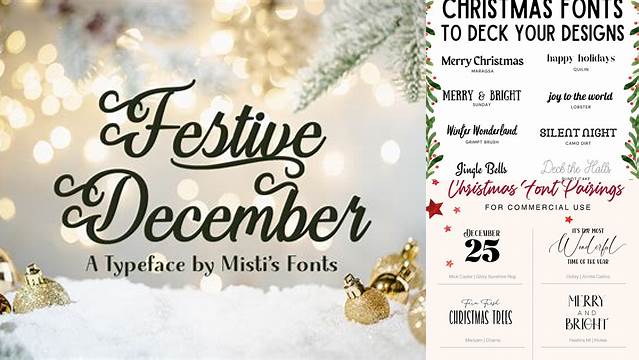
Free Christmas Fonts For Commercial Use: Your Festive Design Toolkit
Hey design enthusiasts! Christmas is just around the corner, and that means it's time to deck the halls with creativity! And what better way to spread holiday cheer than with some fantastic free Christmas fonts that you can use for commercial purposes? Yes, you heard it right! No need to break the bank – we've got you covered with a collection of beautiful and versatile fonts that are perfect for all your festive design needs. From creating eye-catching social media graphics to designing stunning holiday cards and marketing materials, these fonts will add a touch of magic to your projects. Get ready to unleash your inner elf and elevate your designs with these amazing, totally free resources! Let's dive in and explore some of the best free Christmas fonts for commercial use that will make your designs shine this holiday season.
Free Christmas Fonts for Commercial Use: Festive Typography Delights
Christmas is a time for joy, celebration, and of course, beautiful designs. Selecting the right font can significantly impact the visual appeal of your holiday-themed projects. That's why we've curated a list of free Christmas fonts for commercial use that offer a variety of styles, from classic and elegant to modern and whimsical. Whether you're crafting invitations, designing website banners, or creating promotional materials, these fonts will help you capture the spirit of the season. Imagine the possibilities: a playful font for children's books, a sophisticated script for elegant greeting cards, or a bold, festive font for advertising campaigns. The key is to choose fonts that align with your brand's aesthetic and resonate with your target audience. Think about the message you want to convey and how the font can enhance that message. Are you aiming for a cozy, nostalgic feel or a vibrant, contemporary vibe? The fonts you choose will help you set the tone and create a memorable experience for your audience. So, let's embark on a font-finding adventure, exploring options that not only look great but also come with the freedom of commercial use, allowing you to bring your festive visions to life without worrying about licensing fees. Choosing the right free Christmas fonts for commercial use is about expressing creativity and finding the perfect typography match. It means matching the mood of your message with fonts that resonate perfectly with the holiday season.
This is more than just a selection of fonts; it’s about giving designers and businesses the power to express creativity without limitations. You’re given the tools to create a message that’s not only aesthetically pleasing but also memorable and effective. By selecting these fonts, you ensure your holiday communications are on-brand, visually stunning, and ready to spread festive cheer to everyone. So get ready to download, create, and share the holiday spirit through your amazing designs!
Choosing the Right Christmas Font: Style and Usage
Selecting the right font is a crucial decision for any design project, especially during the holiday season, when you want to capture the magic and joy of Christmas. With a vast array of free Christmas fonts for commercial use available, it can be a little overwhelming. To make the process easier, consider the style and usage of each font. Think about the overall aesthetic you're trying to achieve. Do you want a classic, elegant look, a playful and whimsical feel, or something modern and sleek? The font you choose should align with your brand's identity and the message you're trying to convey. If you're designing invitations for a formal holiday event, an elegant script or serif font might be the perfect choice. For a fun and family-friendly project, a playful sans-serif font could be ideal. Consider the context where the font will be used. Will it be used in large headlines, body text, or both? Some fonts are better suited for headlines, while others are more legible for longer blocks of text. Make sure the font is easy to read, especially if it will be used in small sizes or on screens. Think about the visual hierarchy of your design. The font can help you emphasize important information and guide the viewer's eye. Use different font weights, sizes, and styles to create visual interest and highlight key elements. Don't be afraid to experiment with different font combinations to find the perfect match. Pair a bold headline font with a more subtle body text font to create a balanced and visually appealing design. By considering these factors, you can select free Christmas fonts for commercial use that will enhance your holiday projects and make them truly unforgettable. Choosing the right font means finding something that not only looks good but also speaks to the emotional connection of the holiday season.
Script Fonts for Christmas: Adding Elegance and Flair
Script fonts have a special place in design, offering elegance and a touch of personalization that can elevate any project, especially during the festive season. If you are looking for free Christmas fonts for commercial use that exude sophistication and charm, script fonts are an excellent choice. These fonts mimic handwriting, giving your designs a handcrafted feel that can be incredibly inviting. Whether you're designing holiday cards, invitations, or packaging, a well-chosen script font can add a touch of luxury and warmth. Script fonts come in various styles, from classic and formal to modern and casual. Some scripts are ornate and flowing, perfect for creating a sense of occasion, while others are more relaxed and playful, suitable for a more informal feel. When selecting a script font, consider the context of your design. For a traditional Christmas theme, a classic script with elegant flourishes might be ideal. For a more modern or minimalist approach, a clean, contemporary script could be a better fit. Legibility is also an important factor when using script fonts. Ensure the font is easy to read, especially if it will be used in small sizes or for longer passages of text. A script font that is too elaborate or difficult to decipher can detract from the overall design. To make script fonts stand out, you can pair them with a complementary font, such as a clean sans-serif or a classic serif, for body text. This combination will create a balanced and visually appealing design. You can also experiment with different colors, sizes, and styles to enhance the impact of the script font. Script fonts are perfect for adding a personal touch to your projects. When looking at free Christmas fonts for commercial use, a script font can be the perfect way to capture the spirit of the season.
Display Fonts: Bold Statements for Holiday Greetings
Display fonts are the powerhouses of typography, designed to grab attention and make a bold statement. When it comes to creating eye-catching holiday greetings, display fonts are your best friends. Fortunately, there are plenty of free Christmas fonts for commercial use in the display font category, offering a wide range of styles that can make your designs stand out from the crowd. These fonts are typically used for headlines, titles, and other prominent text elements. They are designed to be visually striking and memorable, making them ideal for creating impactful holiday messaging. Display fonts come in various styles, from decorative and ornate to modern and geometric. Some fonts feature festive elements, such as snowflakes, stars, or other holiday-themed imagery, integrated directly into the letterforms. Others have bold, eye-catching letter shapes that demand attention. When choosing a display font for your holiday projects, consider the overall aesthetic of your design. A playful, whimsical font might be perfect for children's books or social media graphics, while a more elegant and sophisticated font could be ideal for greeting cards or marketing materials. Think about the readability of the font. While display fonts are designed to be visually appealing, it's important to ensure they are still legible, especially if you are using them for headlines or titles. Avoid fonts that are overly complex or difficult to decipher. Pairing a display font with a complementary font for body text can create a balanced and visually appealing design. The display font will draw attention, while the body text font provides the necessary information. By using these free Christmas fonts for commercial use, you will give your projects a huge advantage and create the wow factor you desire.
Sans-Serif Fonts: Clean and Modern Christmas Designs
For those who appreciate simplicity and a modern aesthetic, sans-serif fonts are a go-to choice for any design project. During the festive season, these fonts can provide a clean, contemporary look that balances the traditional warmth of Christmas with a touch of modern flair. Luckily, there are many free Christmas fonts for commercial use that fall into the sans-serif category, providing a versatile range of options for your holiday designs. Sans-serif fonts, characterized by their lack of serifs (the small strokes at the end of letters), offer a clean, uncluttered appearance that is easy to read and highly versatile. They are ideal for a wide range of applications, from website design and social media graphics to print materials and packaging. When choosing a sans-serif font for your Christmas projects, consider its personality. Some sans-serif fonts are sleek and minimalist, perfect for a modern and sophisticated look. Others have a more rounded or playful appearance, suitable for a fun and festive vibe. Think about the overall aesthetic you're trying to achieve and select a font that aligns with your brand's identity and the message you want to convey. Legibility is crucial when using sans-serif fonts, especially for body text. Ensure the font is easy to read, especially in small sizes and on screens. A well-chosen sans-serif font can enhance readability and make your designs more accessible to your audience. Combining a sans-serif font with another type of font, such as a script or serif, can create an interesting visual contrast. This can help you create a more dynamic and visually appealing design. Using free Christmas fonts for commercial use in the sans-serif style can elevate your holiday designs and give them a modern edge.
Serif Fonts: Classic and Elegant Christmas Typography
Serif fonts, with their classic elegance and timeless appeal, are a perfect choice for creating designs that evoke the spirit of Christmas. If you are looking for free Christmas fonts for commercial use that exude sophistication and a touch of tradition, serif fonts should be at the top of your list. These fonts, characterized by the small strokes, or serifs, at the end of each letter, have a long history of use in print and design, lending a sense of refinement and trustworthiness to any project. Serif fonts come in a variety of styles, each with its own unique personality. Some serifs are elegant and formal, perfect for creating a sense of occasion, while others are more casual and approachable. For Christmas projects, consider fonts that have a classic, traditional feel, or those that incorporate decorative elements to celebrate the holiday. Legibility is a key factor when choosing a serif font, especially for body text. Ensure the font is easy to read, particularly in smaller sizes. A well-chosen serif font can enhance readability and make your designs more accessible to your audience. Serif fonts pair well with other fonts, such as sans-serifs, to create interesting visual contrasts. A bold serif font can be used for headlines, while a clean sans-serif can be used for body text, creating a balanced and visually appealing design. Selecting free Christmas fonts for commercial use in the serif style allows you to tap into the traditional elegance of the holiday season.
Handwritten Christmas Fonts: Adding a Personal Touch
There's something uniquely special about a design that feels personal, almost as if it was created just for you. Handwritten fonts can do just that, bringing a touch of warmth, authenticity, and genuine holiday cheer to any project. If you are searching for free Christmas fonts for commercial use that embody the spirit of handcrafted beauty, handwritten fonts are an excellent choice. These fonts, designed to mimic the look of handwritten script or lettering, give your designs a unique, intimate feel. They are ideal for creating invitations, greeting cards, social media graphics, and any project where you want to communicate a personal message. Handwritten fonts come in a variety of styles, from elegant and flowing scripts to casual and playful brush strokes. Consider the overall tone of your design when selecting a handwritten font. For a sophisticated look, choose an elegant script with delicate strokes. For a more informal feel, a bold brush font might be the perfect choice. Legibility is essential, so ensure the font is easy to read, especially in the context of the project. To enhance the impact of a handwritten font, you can pair it with a complementary font. A clean sans-serif font for the body text can create a balanced, visually appealing design. When using free Christmas fonts for commercial use, a handwritten font can be a great way to create that extra-personal touch.